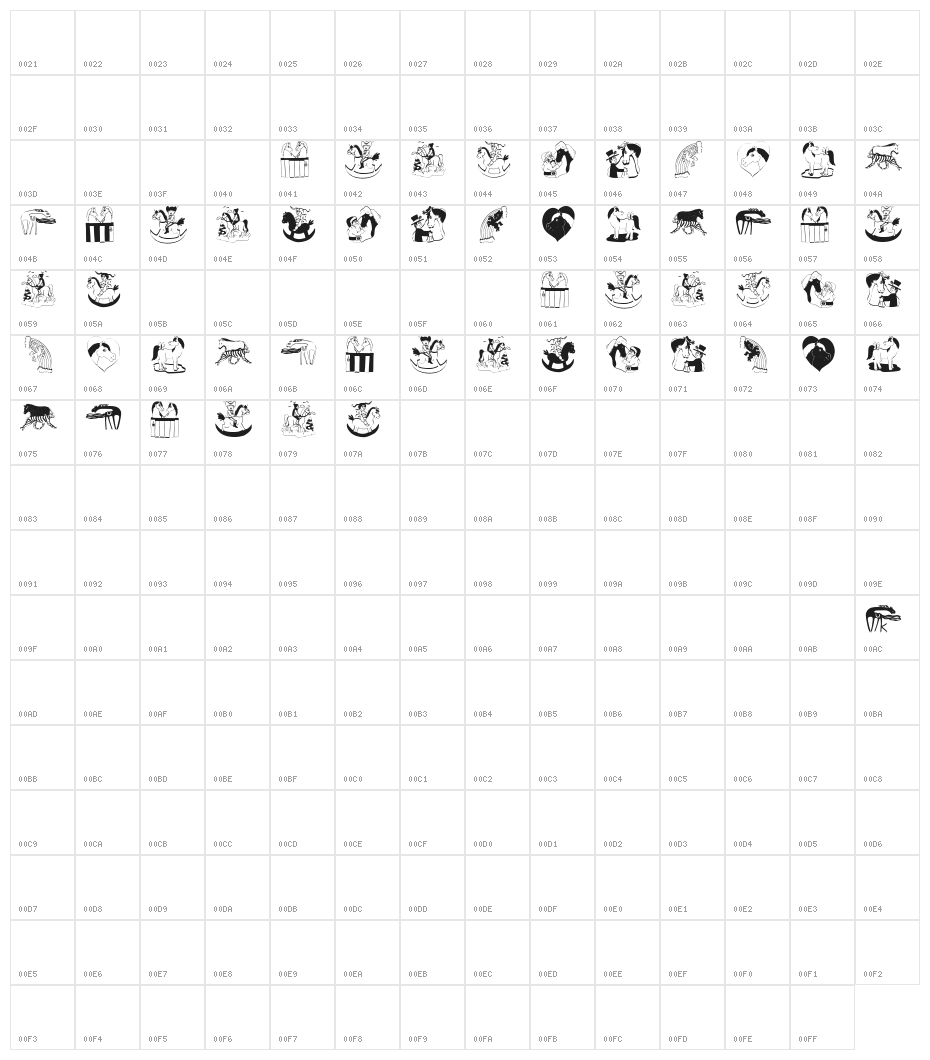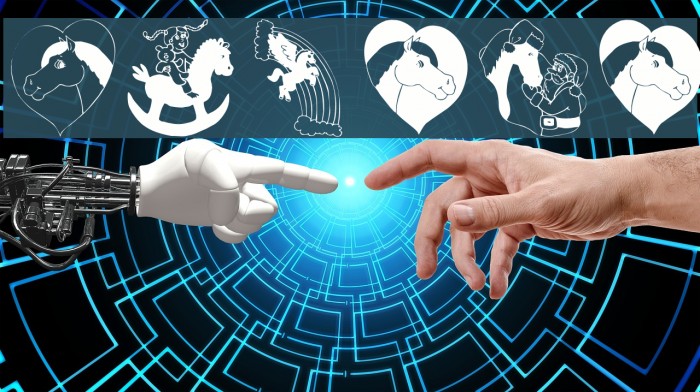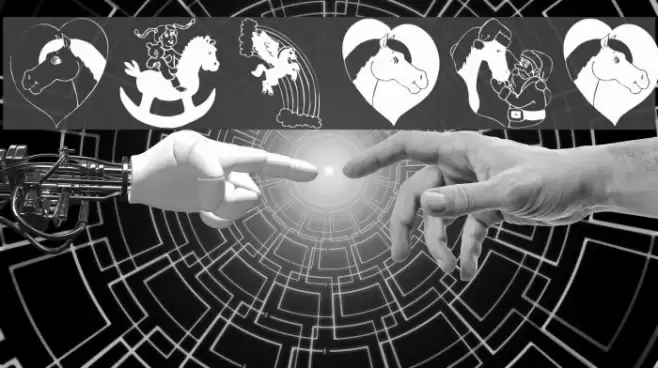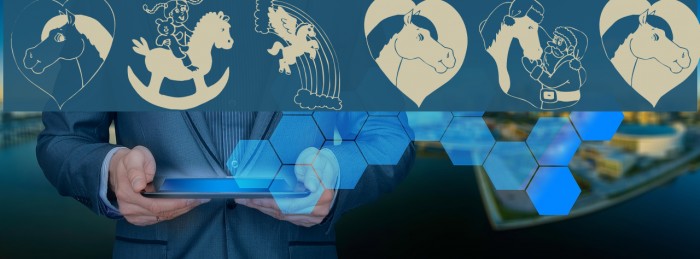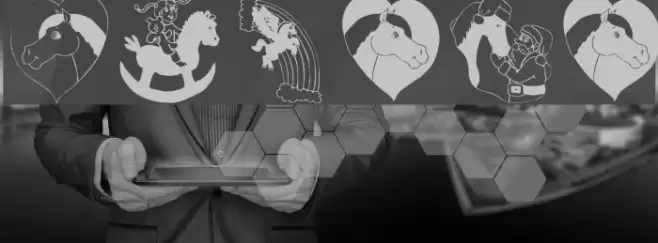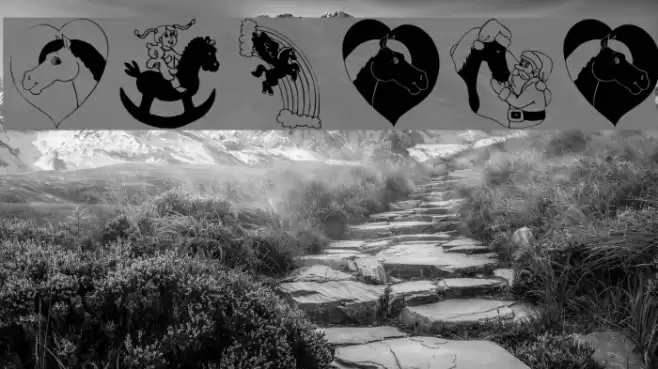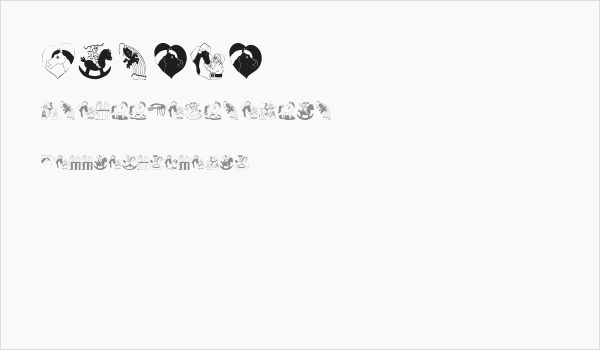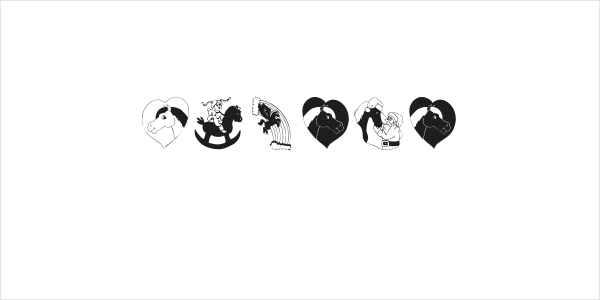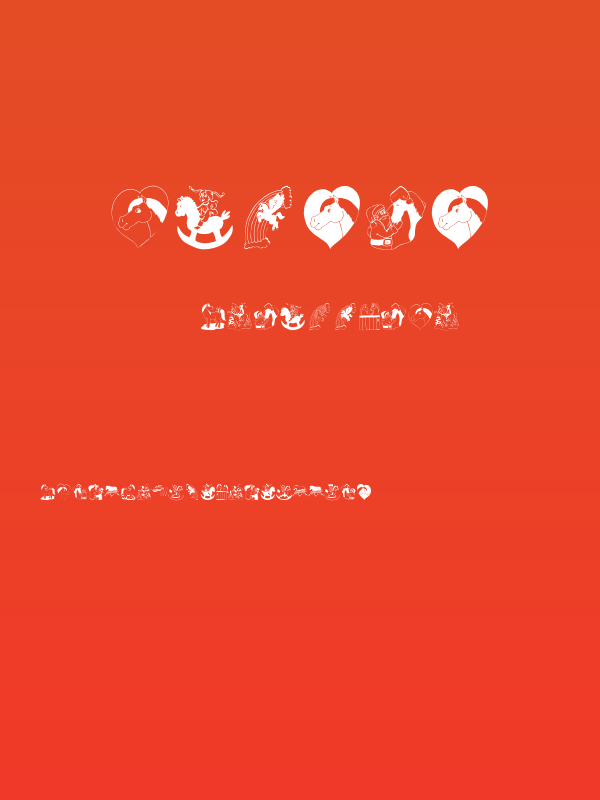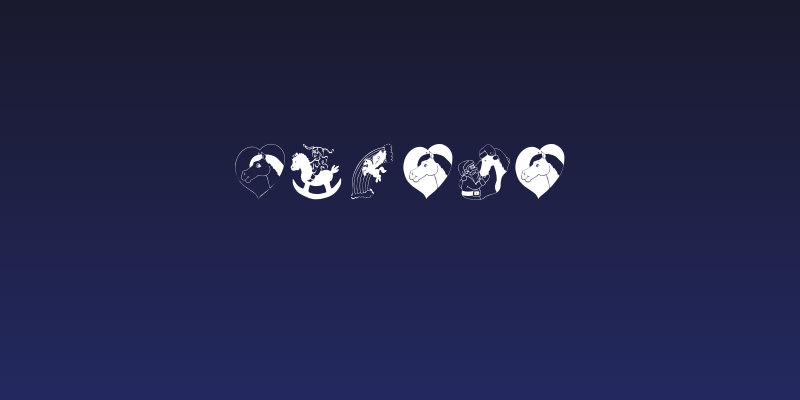
Horses Font
Horses Description
This is a decorative font featuring whimsical illustrations of horses and various elements integrated into each character. Each letter and number is uniquely designed with playful and artistic depictions of horses, often accompanied by other elements like hearts, stripes, and abstract shapes. The font is highly decorative, making it suitable for creative and thematic projects. The characters are detailed and intricate, showcasing a blend of artistic flair and equestrian themes. This font is not suitable for body text due to its complex design but can be a standout choice for specific decorative purposes.
| Use Case | Logos, Headlines, Decorative purposes |
| Proposed Projects | Ideal for children's book covers, equestrian-themed event invitations, playful posters, and decorative art projects. |